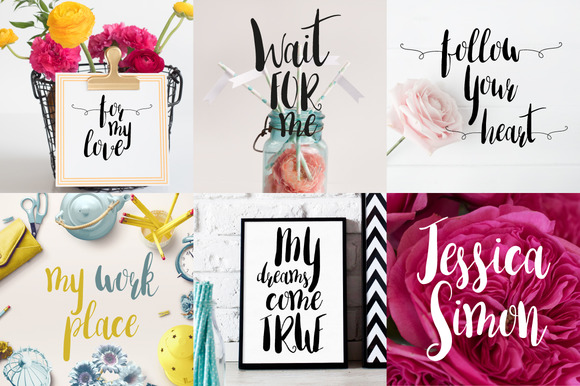
Amber Light Font
About Amber Light Font
Amber Light is a lovely hand-lettered and modern script font.
It has a classic feel to it and can be used for many types ofa project such as posters, t-shirts, letterheads, logo’s, labels,wedding invitations, cards, and anything else you can imagine withthis font.